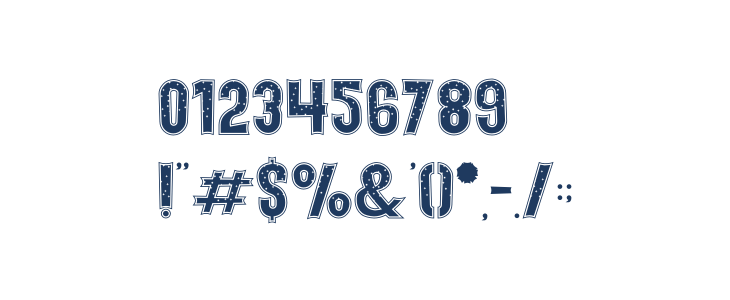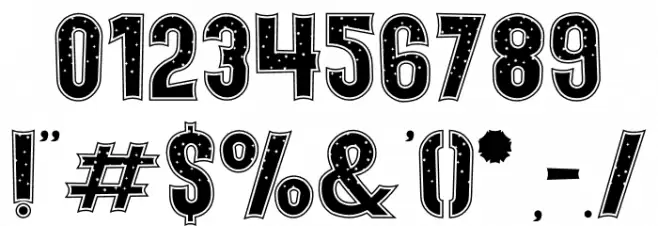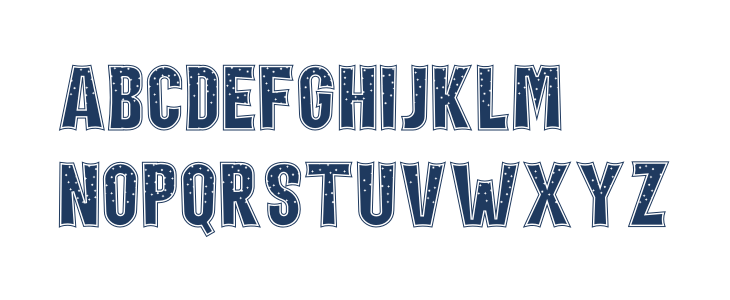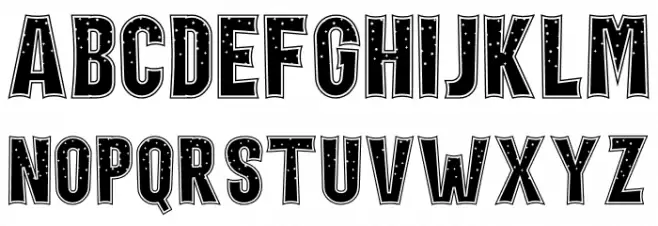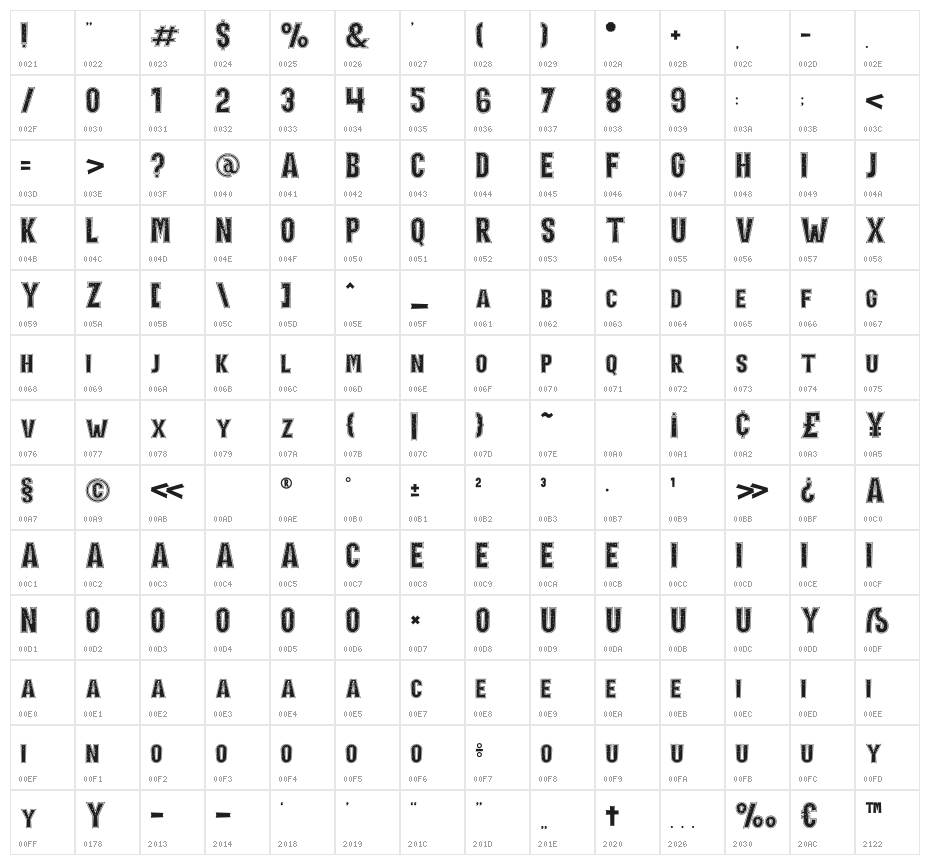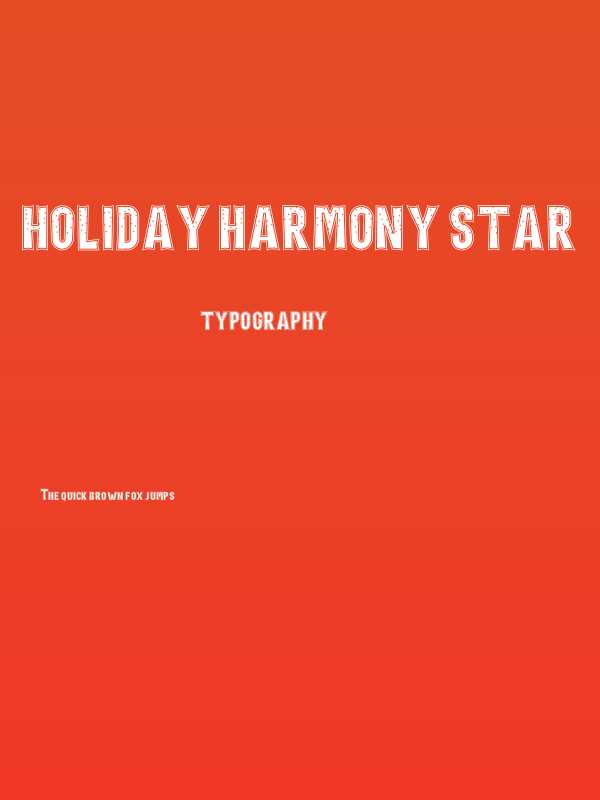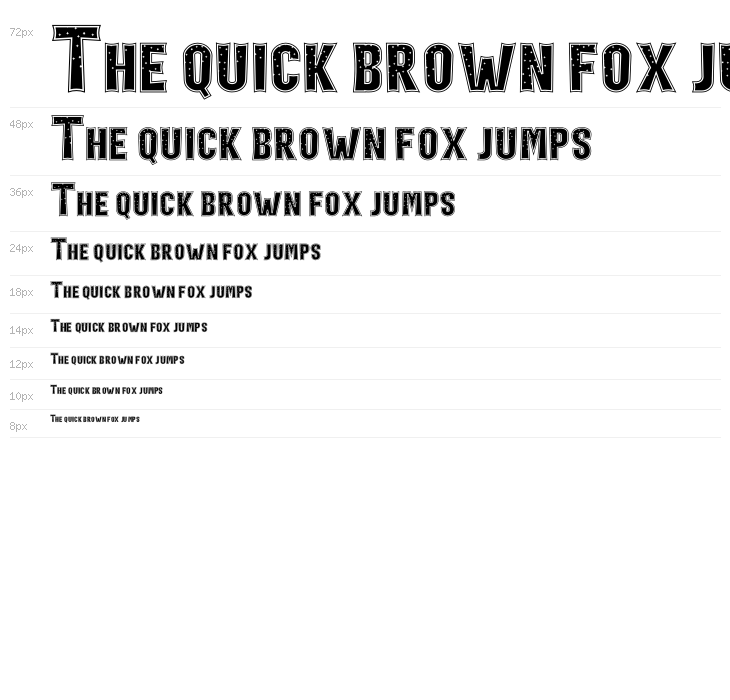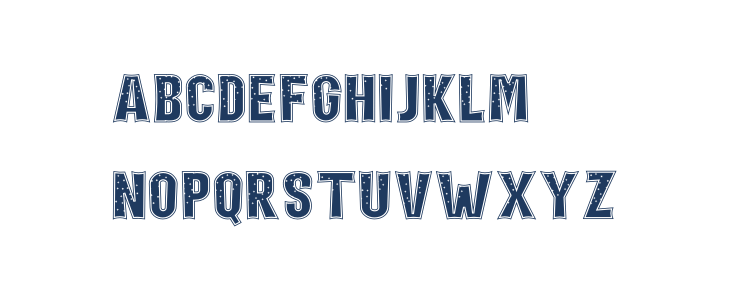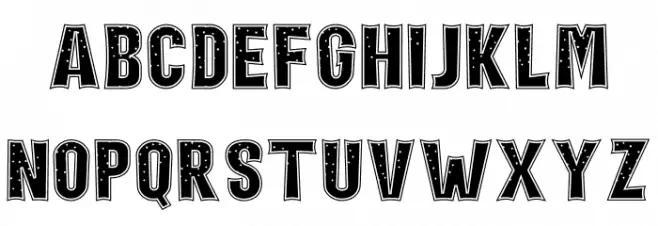
Holiday Harmony Star Font
Holiday Harmony Star Description
A bold, decorative display font with a festive, playful style featuring star and dot patterns inside the letterforms, thick outlines, and strong geometric shapes. The characters are uppercase only, with a slightly condensed width and high contrast between the filled and outlined areas.
| Width | Condensed |
| Overall Style | Decorative, Festive, Playful |
| Use Case | Headlines, Posters, Holiday Graphics, Event Titles |
| Proposed Projects | Holiday cards, event posters, festive banners, party invitations, seasonal branding. |